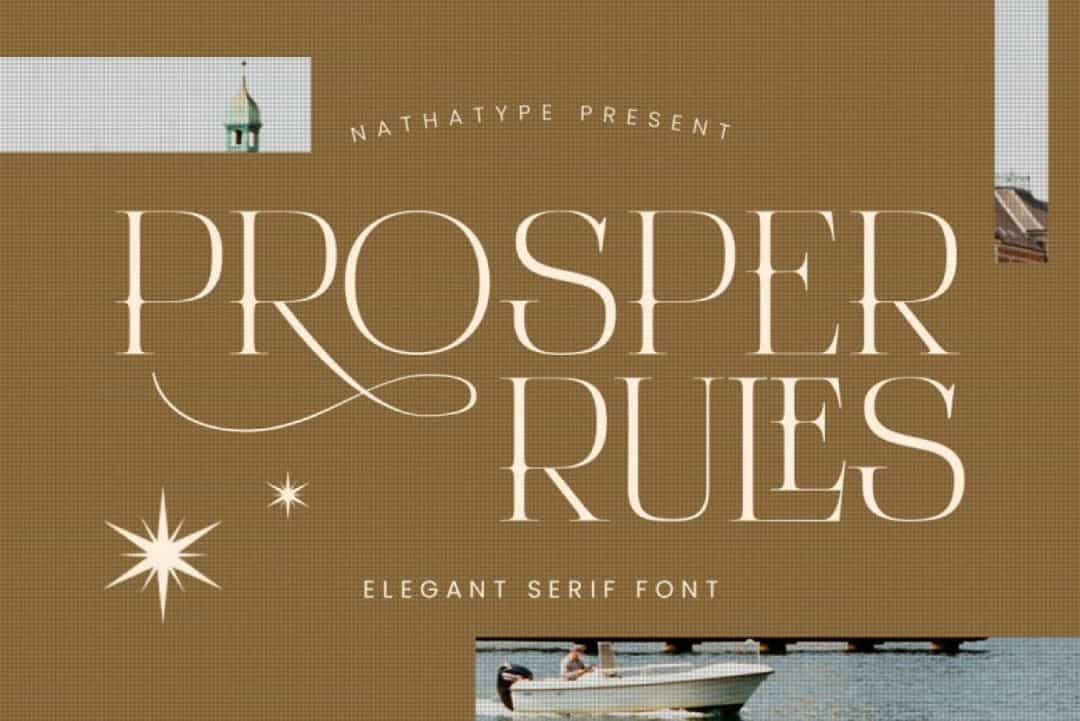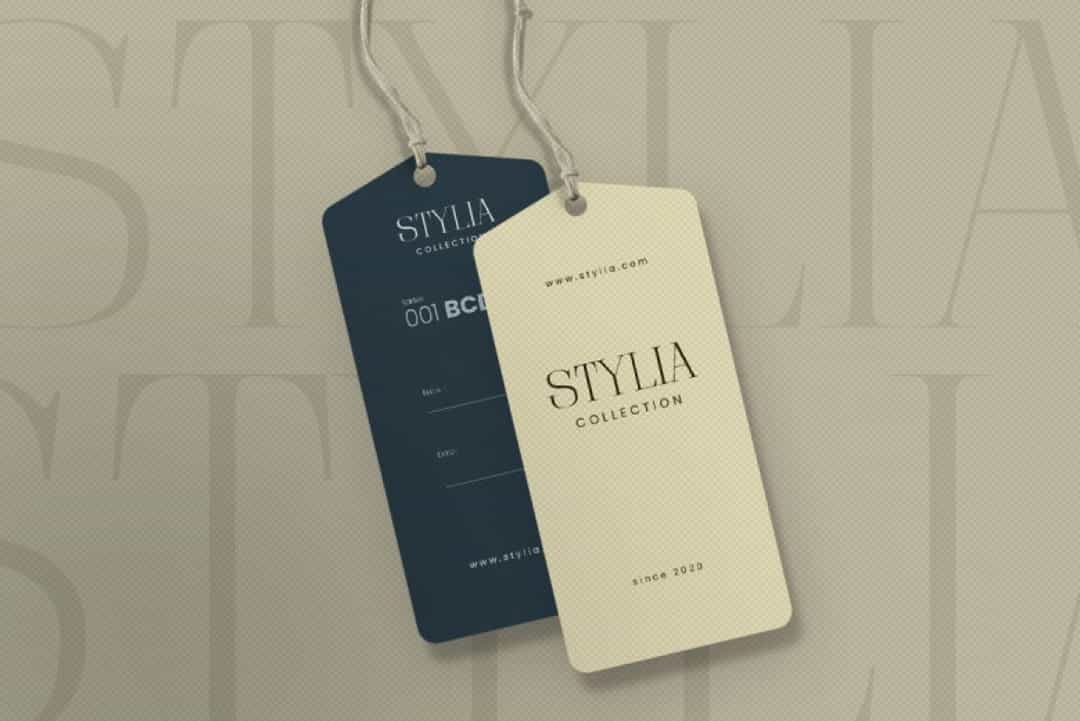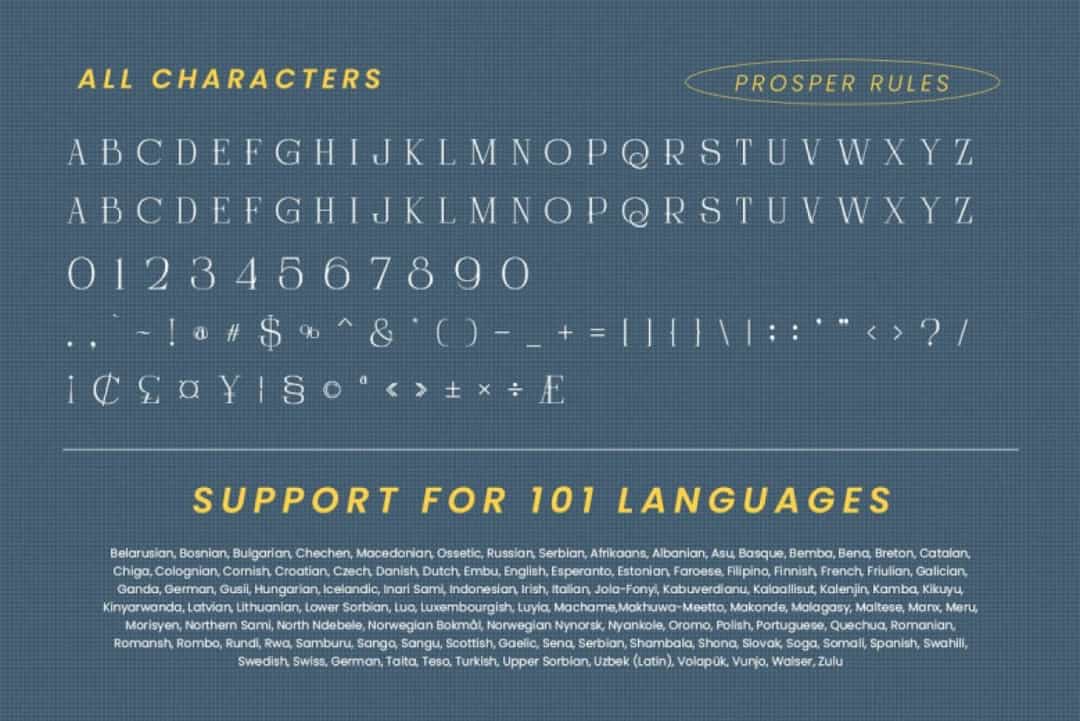
Prosper Rules is an elegant serif typeface with distinctive serifs that exudes class and sophistication. Boasting classic serifs and meticulously-crafted lines, Prosper Rules adds an air of class and sophistication to your work. Prosper Rules stands out due to its extended lines woven seamlessly into its letters; providing visual contrast that elevates its overall look.